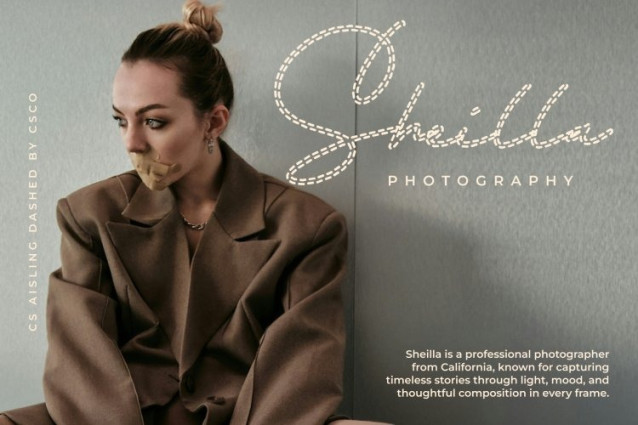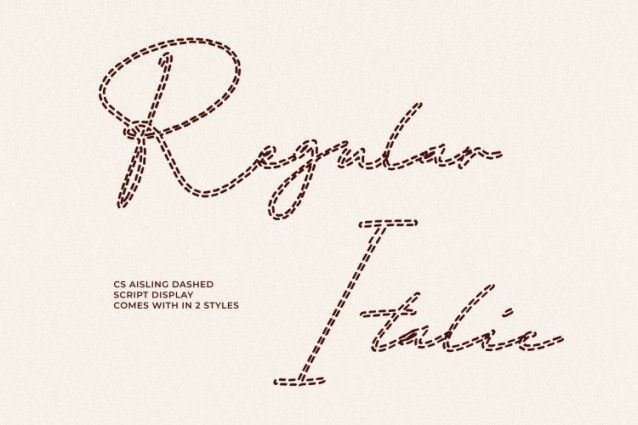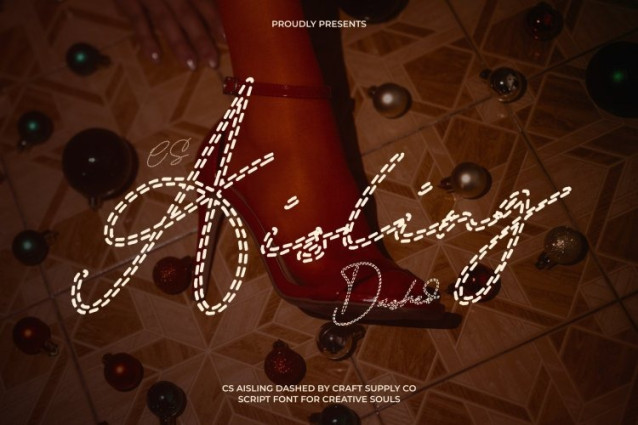
CS Aisling Dashed Font
CS Aisling Dashed Font is a signature script font designed to capture the personal and unique character of handwritten signatures. Inspired by natural pen movement and fluid writing, it features a distinctive dashed construction each stroke formed from delicate, broken segments rather than solid lines.
Natural Dashed Strokes with Unique Personality
The beauty of this font lies in its organic rhythm and segmented strokes that mimic the subtle lift of a pen. These broken lines add movement and artistic nuance, giving the font a realistic handwritten appearance. The result is a signature style that feels exclusive, custom, and thoughtfully crafted perfect for designs that seek individuality and character.
Elegant Expression with a Creative Edge
Balancing softness and sophistication, this font conveys confidence and style while maintaining a relaxed, handcrafted charm. The dashed detailing introduces a modern creative twist, enhancing visual interest without compromising its refined and polished look. It’s ideal as a focal typographic element that communicates warmth and prestige.
Ideal for Logos, Branding, and Luxury Invitations
Perfect for logos, personal branding, luxury invitations, packaging, and fashion or beauty-related projects, this font transforms typography into a signature statement. Its airy dashed strokes and elegant flow make it especially suited for boutique brands, wedding stationery, and high-end designs that value authenticity and timeless beauty.